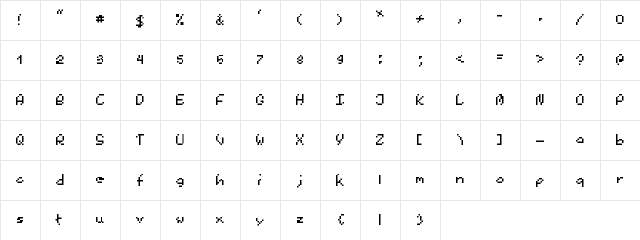
jot it down Regular
| Designer | ssaamm |
Design Context for jot it down Typeface
jot it down is a composed and adaptable typeface that performs quietly and consistently across a wide range of design contexts.